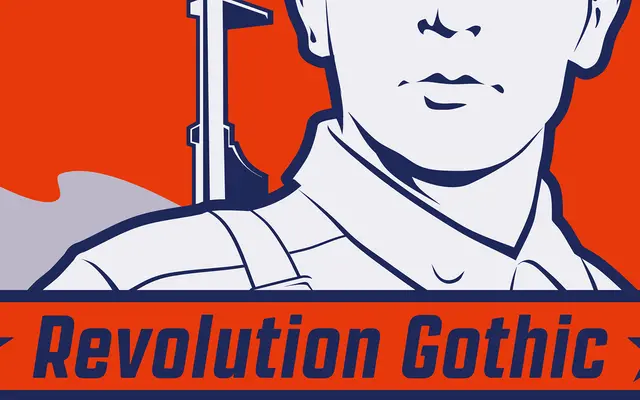
Revolution Gothic
Dharma Type · 2008
An expanded reworking of PAG Revolucion, drawing on mid-20th century propaganda poster lettering with 10 styles including new weights, slanted cuts and lowercase.
Originally released by Prop-A-Ganda in 2008 and inspired by propaganda posters and wall paintings from the 1960s to 1980s, this updated release refines spacing and details throughout. The family now spans 10 styles with newly added weights, matching slanted variants and lowercase characters absent from the original. Best suited to retrospective branding, editorial headlines and poster work where a period-political flavour is appropriate.
Heavily stylised uppercase-dominant display type inspired by mid-20th century propaganda poster lettering and wall paintings; the bold, condensed forms and political vernacular roots place it firmly in the display category.